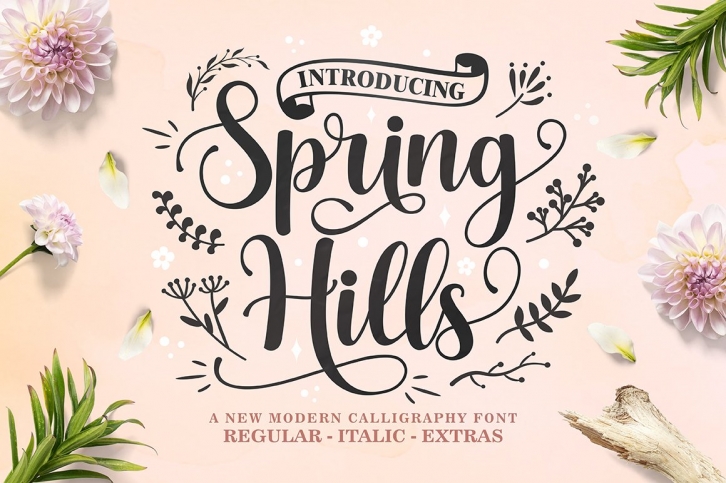
Spring Hills Script FONT Download
Spring Hills Script is a modern calligraphy font, including Regular and italic and extras featuring a sleek and neat glyph. This font has a beautiful and balanced character, making it suitable for various purposes. such as written posters, wedding invitations, logos, product packaging, branding, titles, signs, labels, mugs, book covers, quotes, and others.
Spring Hills Script features alternative OpenType styles, ligatures, and Various International for most Western languages. To enable the alternative OpenType Stylistic, you support programs that support OpenType features such as Adobe Illustrator CS, Adobe Indesign & CorelDraw X6-X7, Microsoft Word 2010 or later.